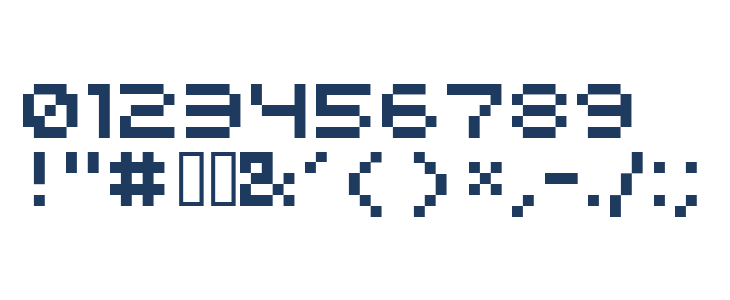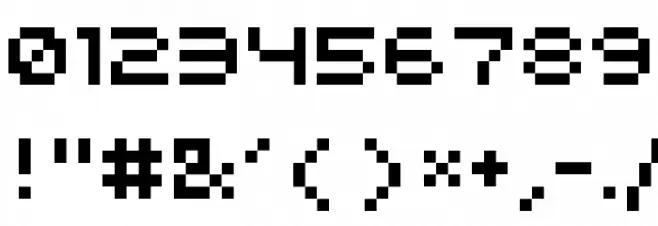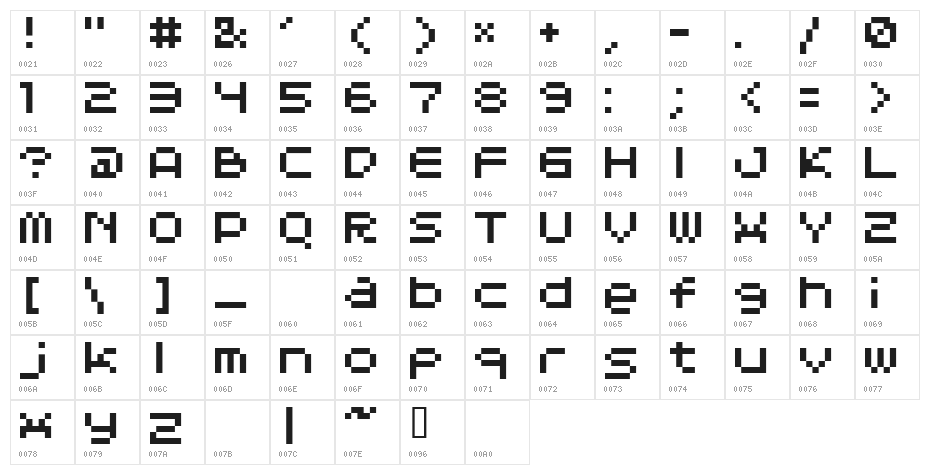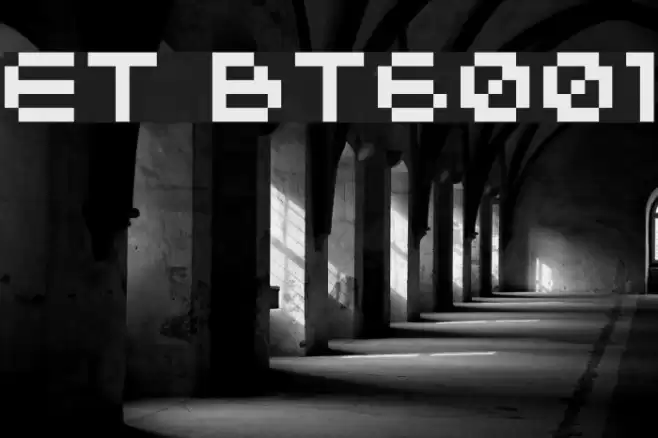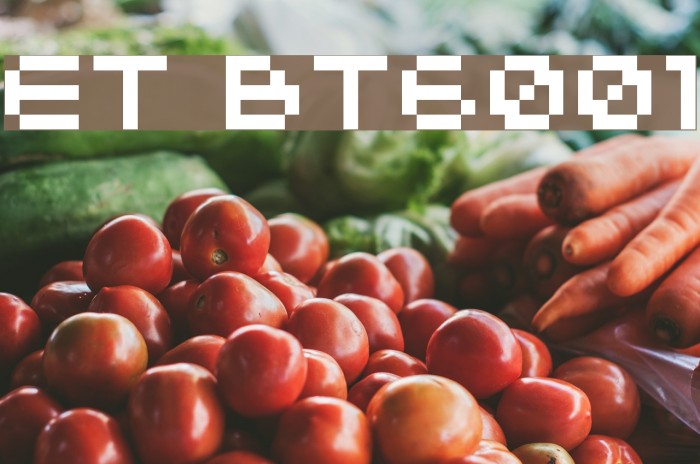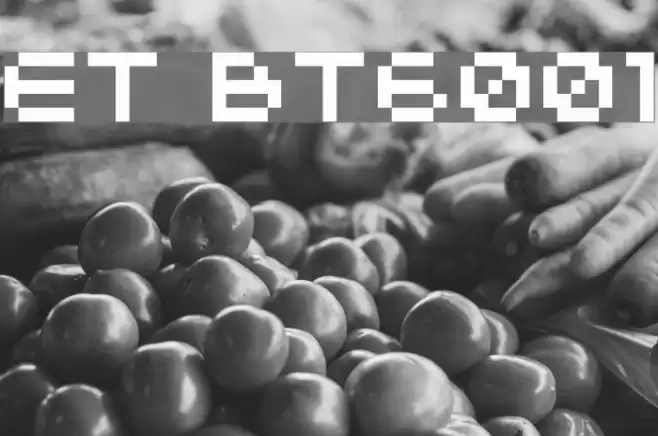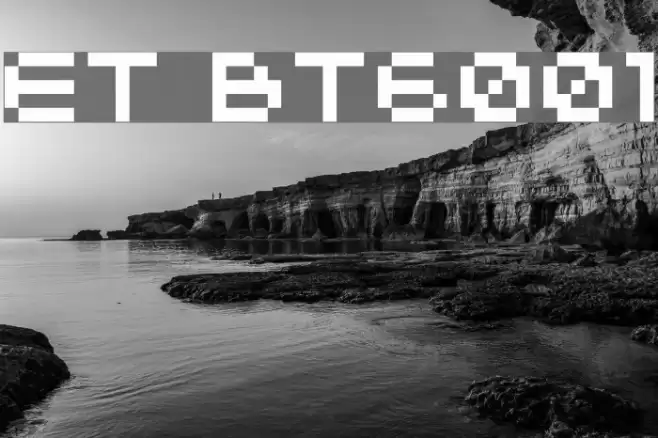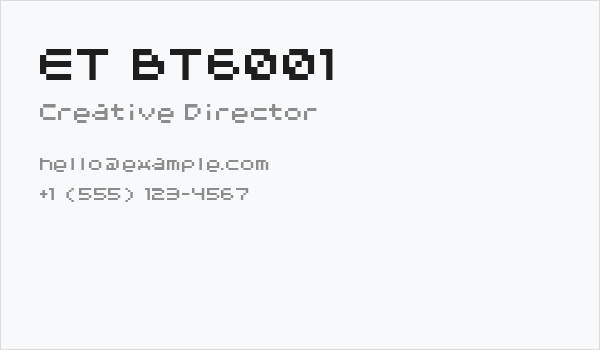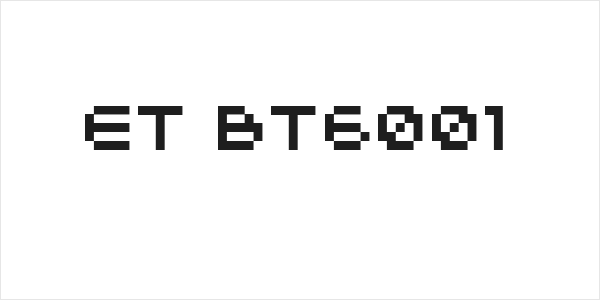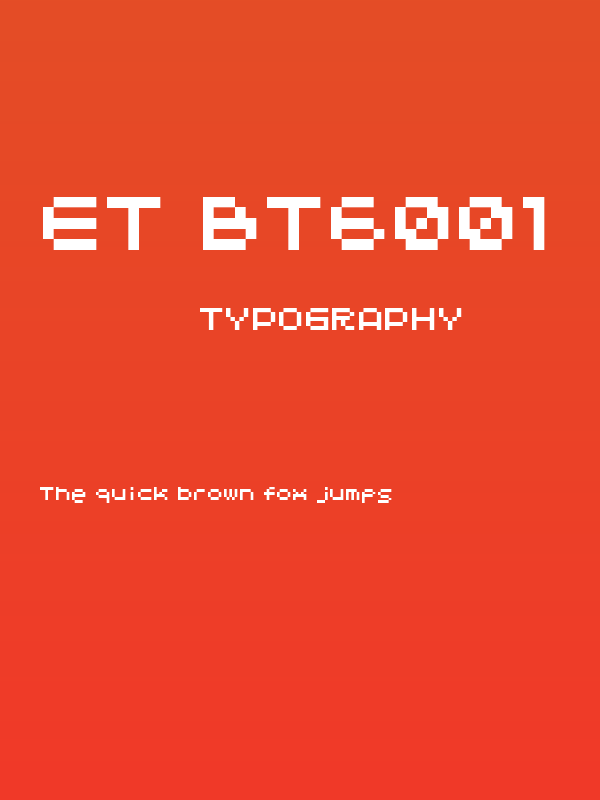
ET BT6001 Font
ET BT6001 Description
This font features a distinct pixelated style reminiscent of early digital displays and video games. Each character is composed of square blocks, giving it a retro, 8-bit appearance. The uppercase and lowercase letters maintain a consistent height and width, contributing to a uniform look. The numbers and special characters follow the same blocky design, ensuring visual coherence across all elements. This font's nostalgic aesthetic makes it ideal for projects that aim to evoke a sense of vintage digital technology or retro gaming culture.
| Proposed Projects | Ideal for retro video game designs, digital art projects, tech-themed posters, and any creative work that seeks to capture a vintage digital aesthetic. |